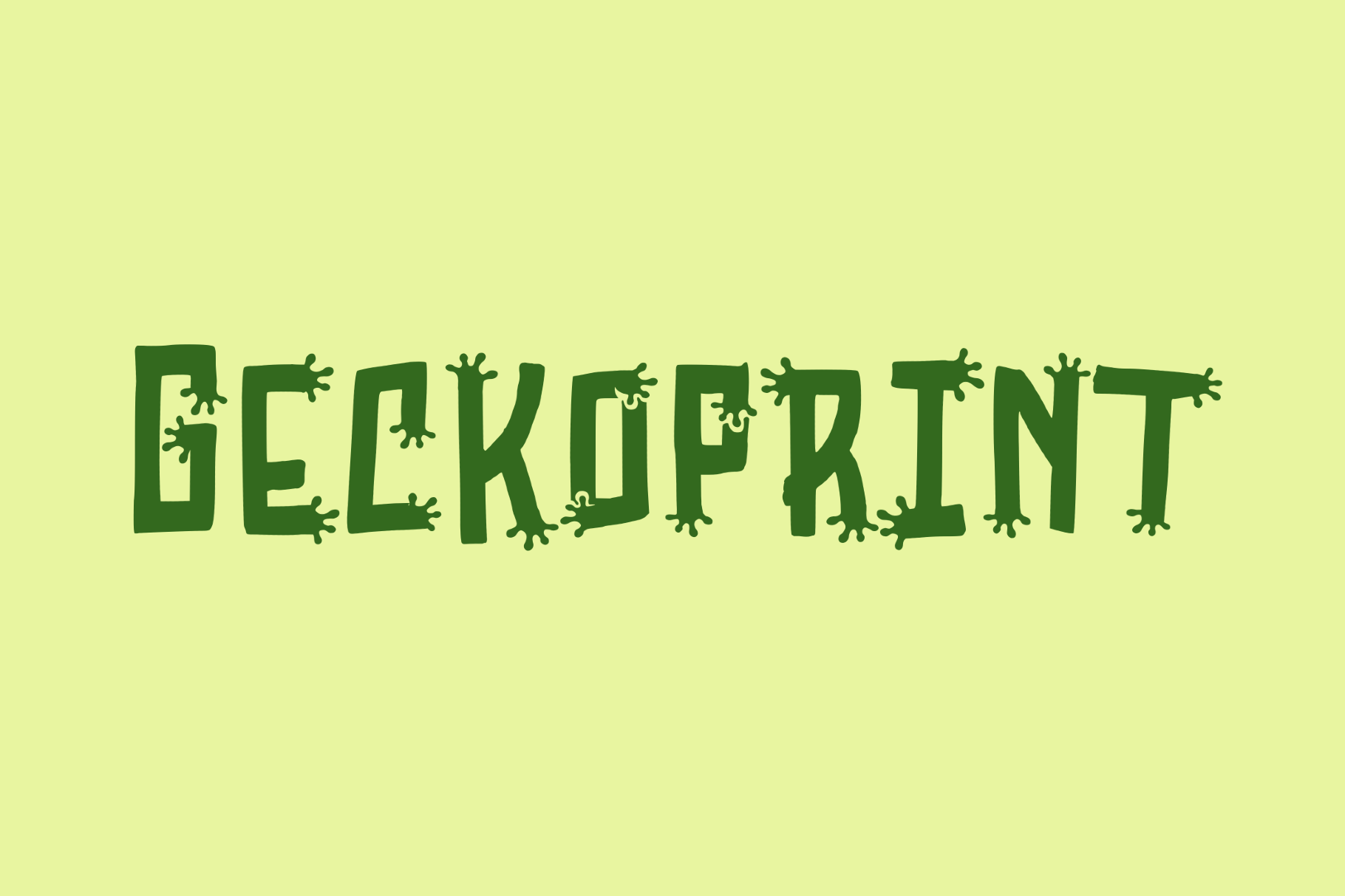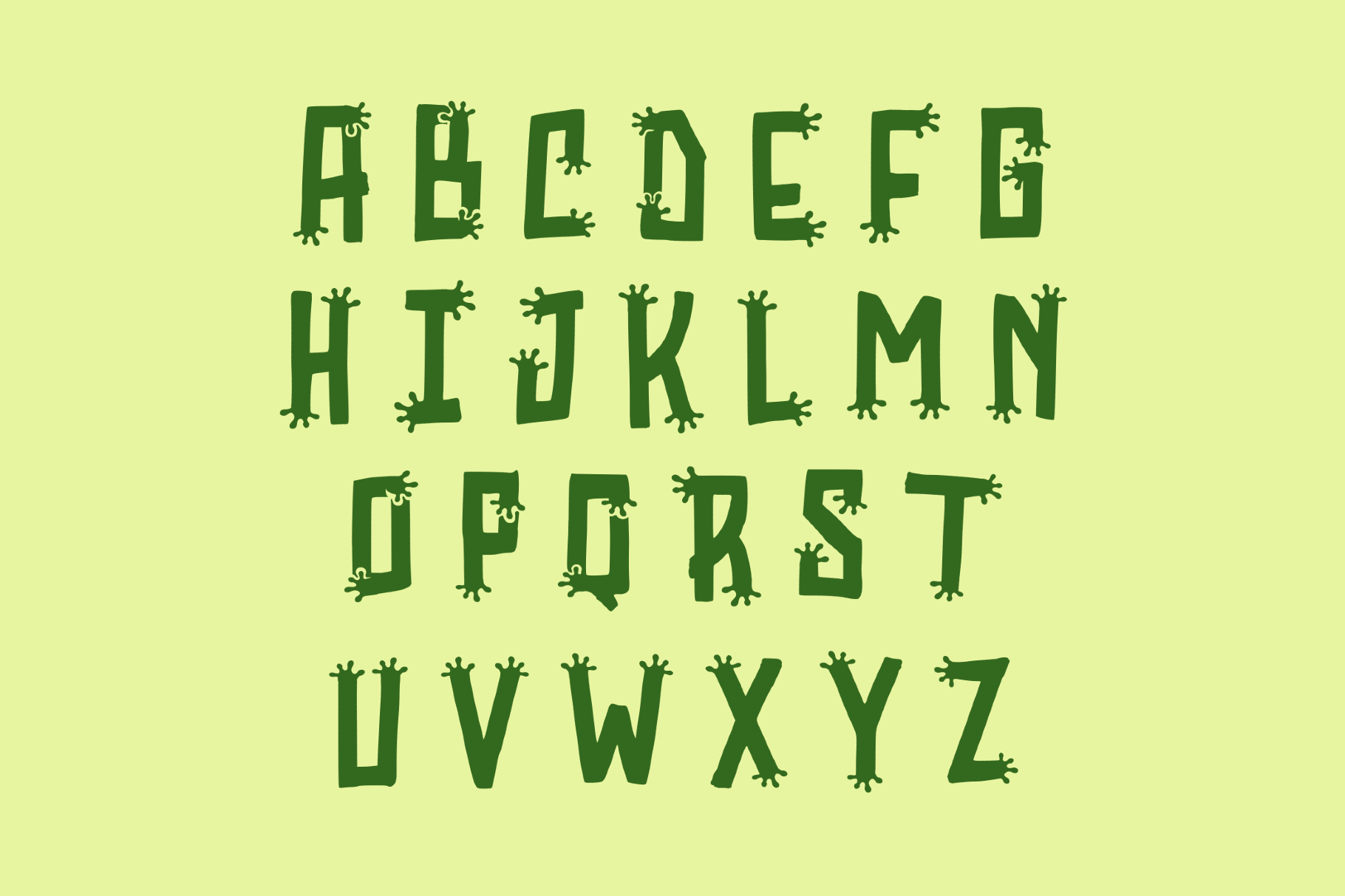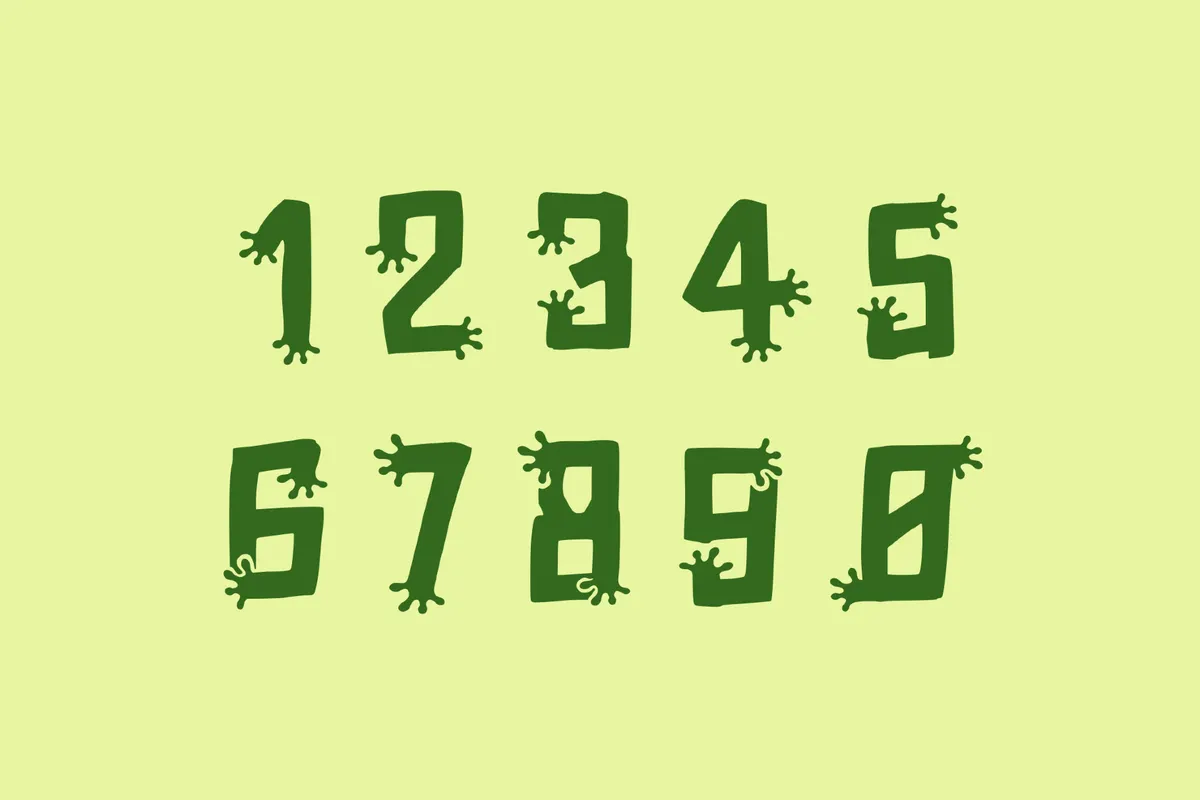
Geckoprint - Funny Halloween Font
Geekoprints is a funny-text font with blunt, blocky strokes and playful splatter-like protrusions. It recalls slime-era cartoon titles, Halloween party graphics and teen horror posters from the 1990s. This display type can be used for poster headlines, game titles, spooky party invites, kids’ merch, sticker designs, YouTube thumbnails and branding.